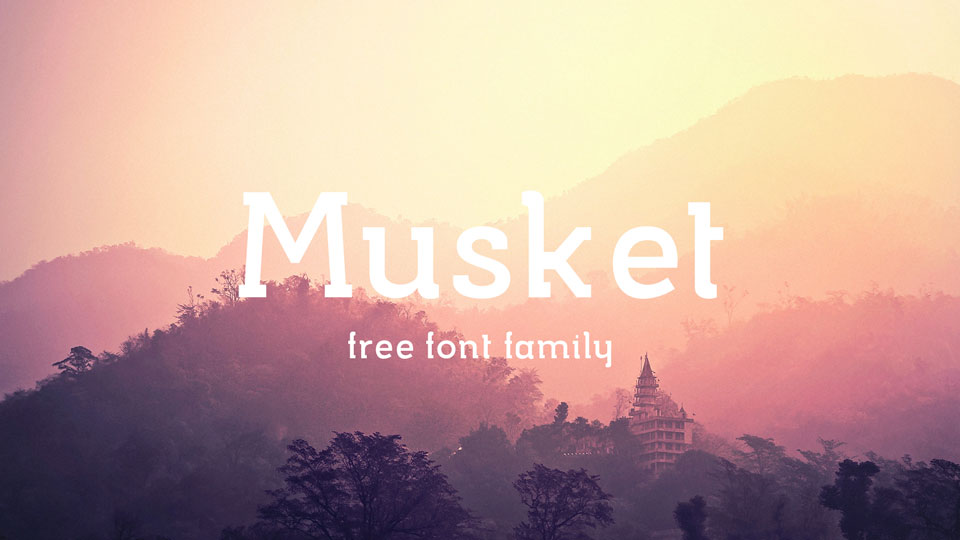
Musket is a robust and slightly condensed slab serif perfect for heading and optimized for small sizes.
Musket typeface comes with Regular and Bold weight, contains uppercase and lowercase letters, numerals and symbols.